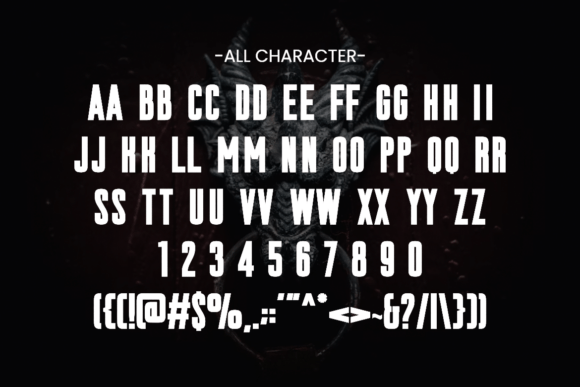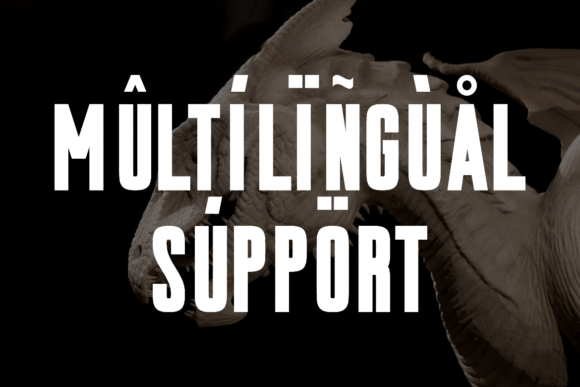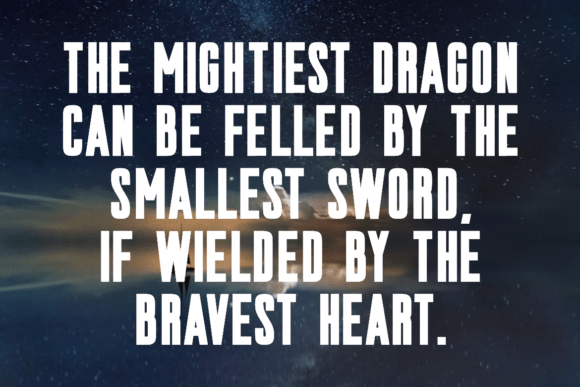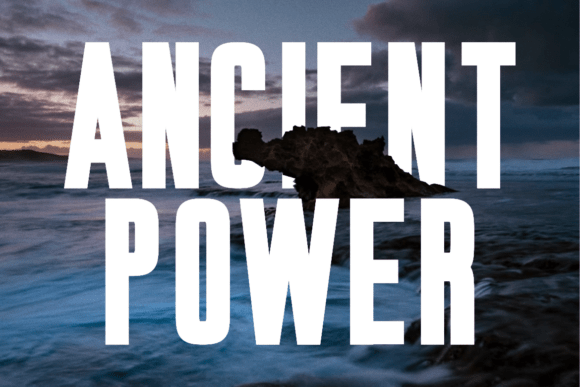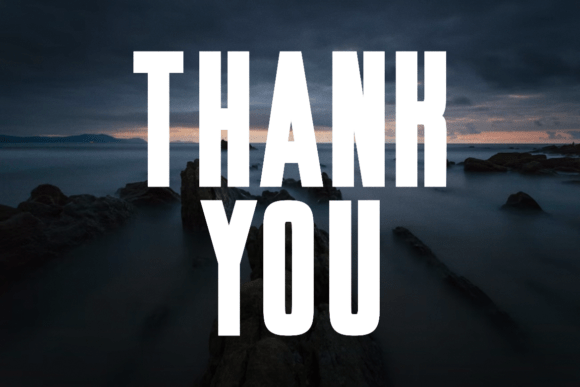
Unleash the Power of Modern Design with Dragons Font
In the world of typography, a font can make or break a design. When it comes to creating a lasting impression, designers and crafters need a font that exudes confidence, professionalism, and a touch of boldness. This is where Dragons Font comes into play – a modern sans serif font that is redefining the way we approach branding and visual design.
The Anatomy of Dragons Font
Dragons Font is characterized by its tall, clean letterforms that scream modernity and sophistication. Its strong structure and minimalist style make it the perfect choice for designers looking to create powerful and professional branding. The font’s bold and sleek design ensures that your message is conveyed with clarity and impact, making it ideal for a wide range of applications.
Ideal Applications for Dragons Font
So, where can you use Dragons Font to make an impact? The possibilities are endless, but here are some of the most popular applications:
- Logos: Create a lasting impression with a bold and memorable logo that showcases your brand’s personality.
- Posters: Grab attention and convey your message with a striking poster that uses Dragons Font to maximum effect.
- Presentations: Elevate your presentations with a professional and modern font that commands respect.
- Website Headers: Make a statement with your website headers and set the tone for a seamless user experience.
- High-Impact Marketing Visuals: Use Dragons Font to create stunning marketing visuals that drive engagement and conversion.
Who Can Benefit from Dragons Font?
Dragons Font is a versatile font that can be used by a wide range of designers and crafters, including:
- Tech Startups: Create a bold and modern brand identity that resonates with your target audience.
- Corporate Identity: Use Dragons Font to convey professionalism and stability in your branding and marketing materials.
- Creative Agencies: Stand out from the competition with a font that exudes creativity and confidence.
Why Choose Dragons Font?
So, why should you choose Dragons Font over other fonts on the market? Here are just a few reasons:
- Unique and Memorable: Dragons Font is a one-of-a-kind font that will help your design stand out from the crowd.
- Professional and Modern: The font’s sleek and modern design ensures that your branding and marketing materials look professional and polished.
- Versatile: Dragons Font can be used across a wide range of applications, from logos and posters to presentations and website headers.
In conclusion, Dragons Font is a powerful and modern sans serif font that is perfect for designers and crafters looking to create bold and professional branding. Its strong structure, minimalist style, and tall, clean letterforms make it ideal for a wide range of applications. Whether you’re designing for a tech startup, corporate identity, or creative agency, Dragons Font is the perfect choice for those who want to make a lasting impression.